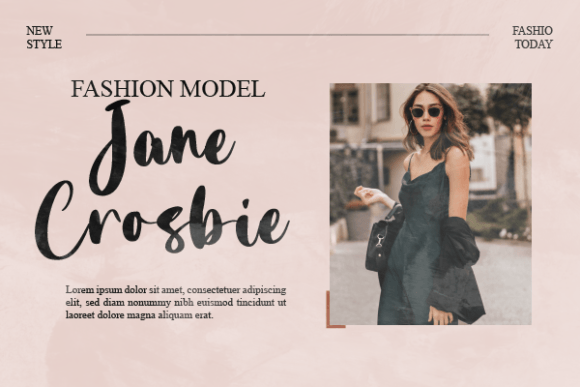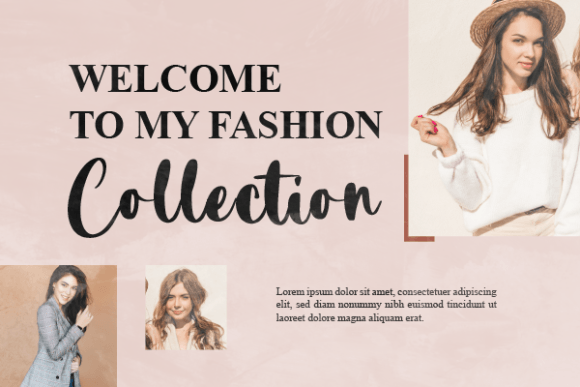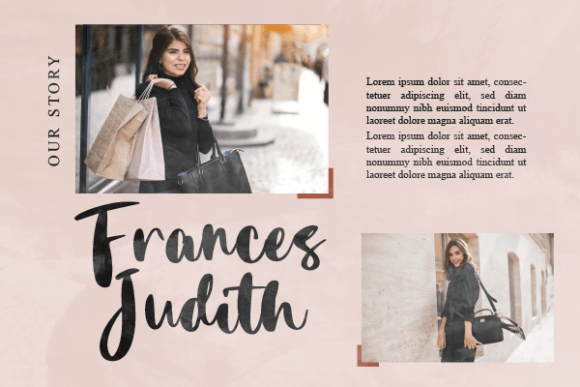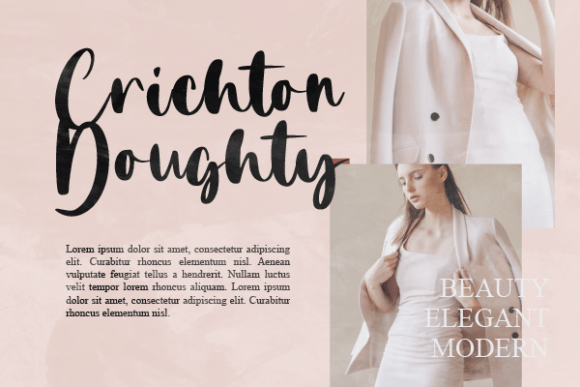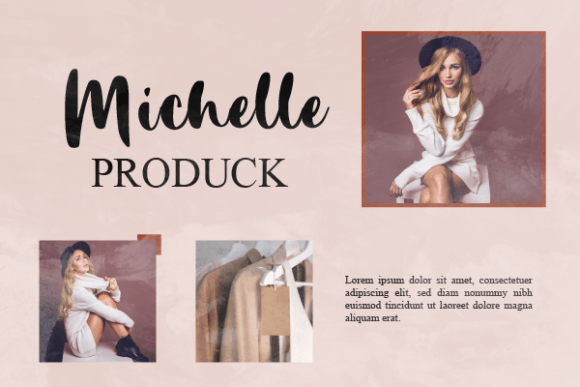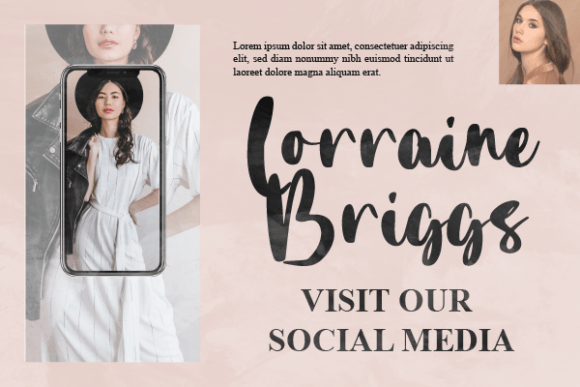
Introduction to Melanie Abigail Font
Melanie Abigail feels equally charming and elegant.
It looks stunning on wedding invitations, thank you cards, quotes, greeting cards, logos, business cards, and every other design which needs a handwritten touch .
Key Features of Melanie Abigail Font
Why Choose Melanie Abigail Font?
Melanie Abigail Font offers exceptional quality and versatility, making it a valuable addition to your design toolkit. Whether you’re creating for personal projects or commercial use, Melanie Abigail Font delivers professional results.